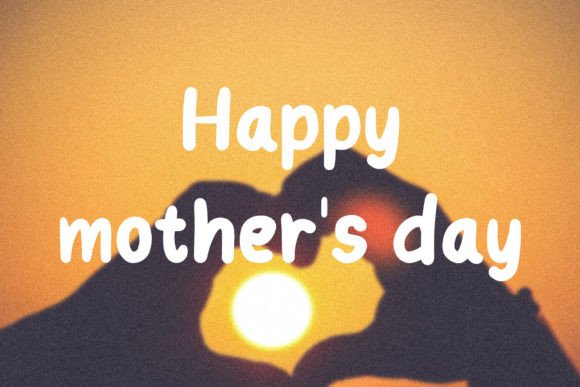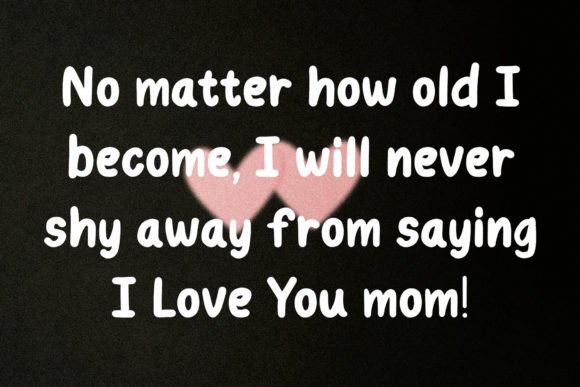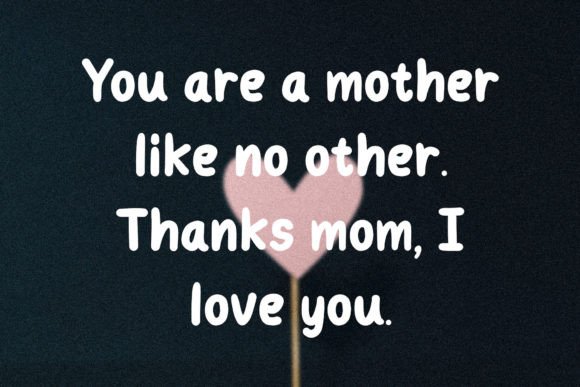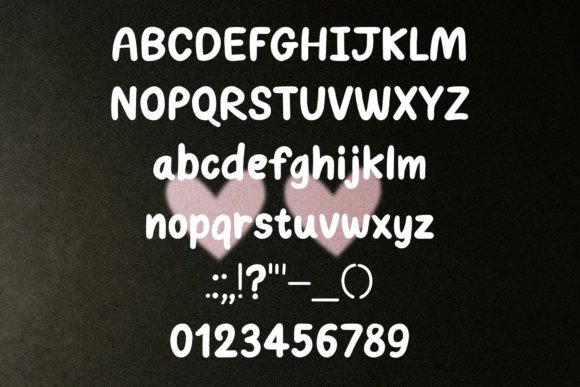
Happy Mother’s Day Font: The Perfect Addition to Your Design Arsenal
Are you on the hunt for a font that exudes warmth, love, and a touch of casual charm? Look no further than the Happy Mother’s Day font! This fresh and neat handwritten font is perfect for designers, crafters, and anyone looking to add a personal touch to their projects. In this article, we’ll dive into the world of Happy Mother’s Day font, exploring its features, uses, and benefits.
A Font that Speaks to the Heart
Happy Mother’s Day font is a beautiful, handwritten font that radiates a sense of warmth and approachability. Its casual charm makes it perfect for a wide range of projects, from crafts and digital designs to presentations and greeting cards. Whether you’re a designer, crafter, or simply someone who loves to create, this font has the potential to become your go-to choice for any occasion.
Key Features of Happy Mother’s Day Font
- Handwritten with love: Happy Mother’s Day font is carefully crafted to mimic the imperfections and uniqueness of handwritten text, giving your projects a personal touch.
- Fresh and neat: The font’s clean lines and fresh feel make it perfect for both digital and print projects.
- Casual charm: The font’s casual vibe makes it ideal for projects that require a friendly, approachable tone.
- Versatile: Happy Mother’s Day font can be used for a wide range of projects, from crafts and digital designs to presentations and greeting cards.
Uses for Happy Mother’s Day Font
Happy Mother’s Day font is an incredibly versatile font that can be used in various projects, including:
- Crafts: Add a personal touch to your DIY crafts, such as handmade cards, gift tags, and scrapbooking projects.
- Digital design: Use Happy Mother’s Day font in your digital designs, such as social media graphics, blog posts, and website headers.
- Presentations: Add a touch of warmth and personality to your presentations, making them more engaging and memorable.
- Greeting cards: Create beautiful, heartfelt greeting cards for special occasions, such as Mother’s Day, birthdays, and anniversaries.
Benefits of Using Happy Mother’s Day Font
So, why choose Happy Mother’s Day font for your projects? Here are just a few benefits:
- Emotional connection: The font’s handwritten, casual charm helps create an emotional connection with your audience, making your projects more relatable and engaging.
- Unique touch: Happy Mother’s Day font adds a unique touch to your projects, setting them apart from others and making them more memorable.
- Easy to read: The font’s clean lines and fresh feel make it easy to read, even in smaller sizes.
- Time-saving: With Happy Mother’s Day font, you can create beautiful, professional-looking projects in no time, saving you time and effort.
Tips for Using Happy Mother’s Day Font
To get the most out of Happy Mother’s Day font, here are a few tips:
- Experiment with colors: Try pairing Happy Mother’s Day font with different colors to create a unique and eye-catching look.
- Mix and match: Combine Happy Mother’s Day font with other fonts to create a visually appealing contrast.
- Use it sparingly: Use Happy Mother’s Day font sparingly to add emphasis and create a focal point in your projects.
In conclusion, Happy Mother’s Day font is a beautiful, versatile font that can add a touch of warmth and personality to any project. With its casual charm, fresh feel, and handwritten imperfections, this font is perfect for designers, crafters, and anyone looking to create unique and engaging projects. So why not give Happy Mother’s Day font a try and see how it can elevate your designs?